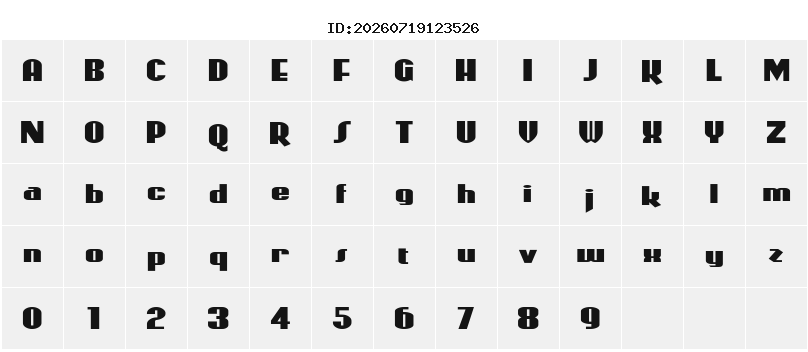
• Font Name: CoasterPoster
• Full Font Name: CoasterPoster
About CoasterPoster.ttf
CoasterPoster.ttf is a modern, elegant sans-serif font designed for ultimate readability and visual harmony. Perfect for branding, headlines, web design, and print materials.